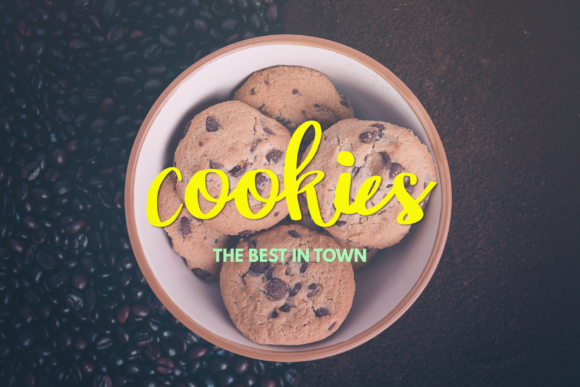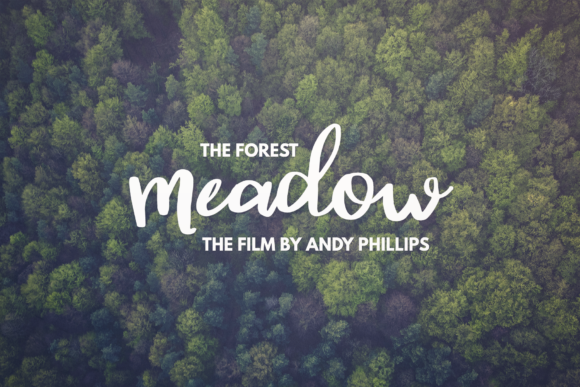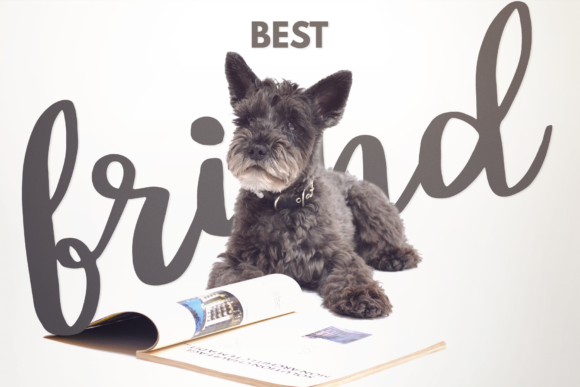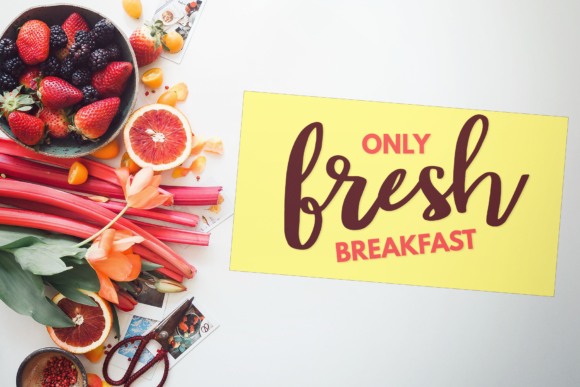
The Magic of Autumn Script Font: A Designer’s New Best Friend
I’ll never forget the time I was working on a fall-themed project for a client, and I just couldn’t find the right font to capture the cozy, warm feeling of the season. I scrolled through page after page of Google Fonts, but nothing seemed quite right. That was until I stumbled upon the Autumn Script Font. ✨ It was like a breath of fresh air – clean, modern, and perfect for the project.
A First Impression: What I Love About Autumn Script Font
So, what makes Autumn Script Font so special? Here are a few things that immediately caught my attention:
- ✅ Clean and modern feel: This font has a freshness to it that makes it perfect for designs that need a bit of sophistication.
- ✅ Handwritten charm: Despite its modern feel, Autumn Script Font still has a warm, handwritten quality that makes it relatable and engaging.
- ✅ Seasonal inspiration: The font’s autumnal inspiration is subtle but unmistakable, making it perfect for fall-themed designs.
- ✅ Versatility: Whether you’re designing a logo, a poster, or a social media graphic, Autumn Script Font is versatile enough to work in a variety of contexts.
A Few Quirks to Keep in Mind
While Autumn Script Font is an amazing addition to any designer’s toolkit, it’s not without its quirks. Here are a few things to keep in mind:
- ⚠️ Limited use in very formal designs: While the font is modern and clean, it’s still a script font, and may not be suitable for very formal or corporate designs.
- 🤔 Some letters may require manual kerning: As with any font, you may need to do some manual kerning to get the letters to sit perfectly, especially in larger sizes.
The Story Behind Autumn Script Font
While the true story behind Autumn Script Font may be a mystery, it’s easy to imagine a designer sitting by a window on a crisp fall day, inspired by the changing leaves and the cozy warmth of the season. The result is a font that’s both modern and timeless – perfect for designs that need a bit of seasonal magic.
| Is Autumn Script Font suitable for body text? | While Autumn Script Font is beautiful, it’s a script font, and may not be suitable for long blocks of body text. It’s best used for headings, titles, and other display text. |